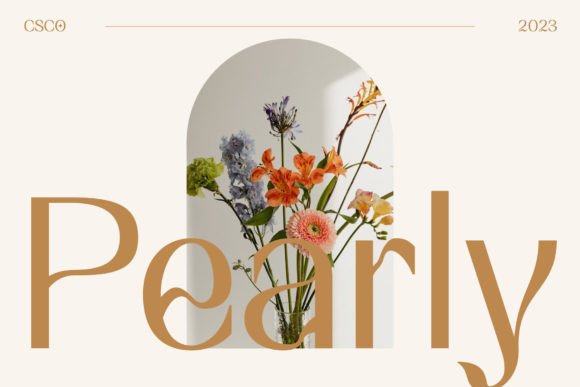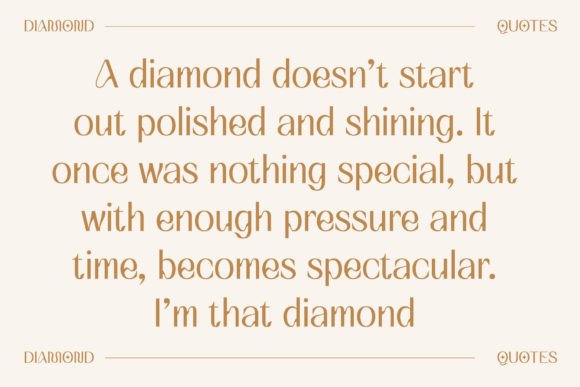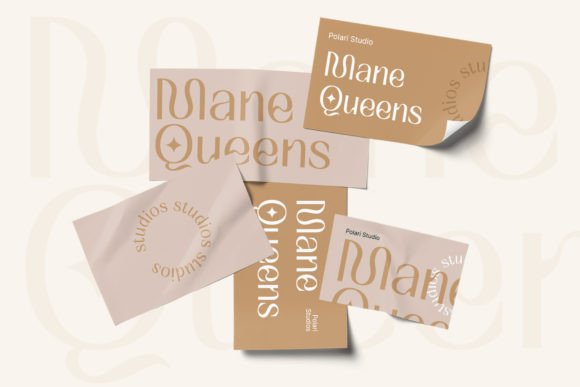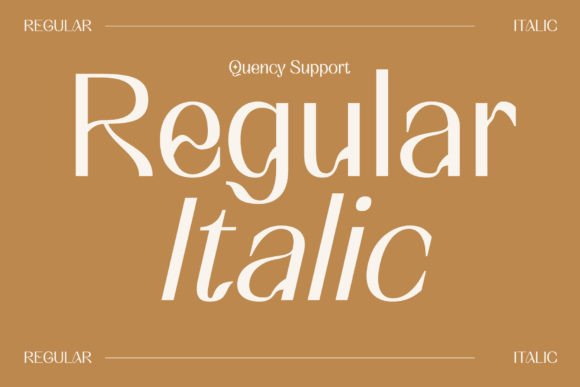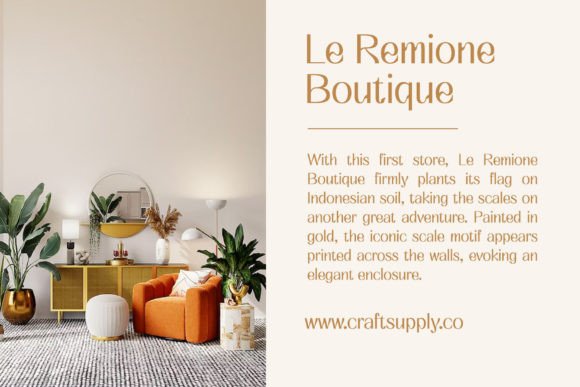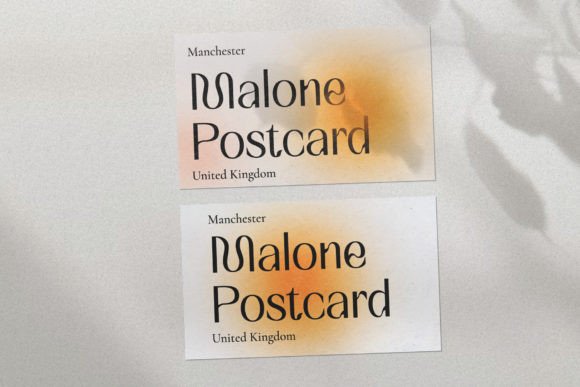
Introduction to Quency Font
Have you ever found yourself staring at a blank design canvas, desperate for the perfect font to bring your creative project to life? We’ve all been there. The search for that elusive, game-changing typeface can be a daunting task, but what if we told you that your search is over? Introducing Quency Font, a delightful and quirky sans-serif font that’s about to revolutionize the way you approach your design projects.
Quency Font is more than just a font – it’s a design resource that adds a touch of whimsy and personality to any project. With its unconventional lines and playful charm, it’s the perfect addition to greeting cards, packaging, brand identity, posters, and so much more. Whether you’re a seasoned designer or just starting out, Quency Font is a high-quality, free download that’s sure to elevate your designs and make them stand out from the crowd.
Key Features of Quency Font
- High-quality, professional design for creative projects, making it an ideal design resource.
- Unique, handcrafted characters with a transparent background, allowing for maximum flexibility and customization in your design.
- Perfect for designers, artists, and writers looking for a distinctive and eye-catching font to elevate their creative project.
- Supports a wide range of languages, including Latin, Cyrillic, and Greek, making it a versatile choice for global design applications.
Honest Review: Quency Font
I recently had the chance to work with the Quency Font, and I have to say it’s a solid addition to any design resource library. One of the things I appreciate about this font is its high quality aesthetic. The subtle nuances in lettering and overall design make it perfect for creative projects where you want to add a touch of sophistication.
- ✨ Customizable: I love that the font is available with a transparent background, which gives me the flexibility to use it in a variety of creative ways.
However, there are a few limitations to consider. The Quency Font is primarily designed for digital use, which means it may not be the best choice for print materials. Additionally, the font is not as extensive as some other options on the market, with only a limited number of weights and styles available.
Overall, I’m impressed with the Quency Font and would definitely recommend it to designers looking for a high-quality, easy-to-use font for their creative projects.
Tips for Getting the Most Out of Quency Font
Experiment with different font sizes and styles to create a unique design effect. Use the font with a transparent background to create a visually appealing design. Also, consider using the font in combination with other design elements to create a cohesive and high-quality design.
Common Use Cases for Quency Font
The Quency Font is ideal for use in creative projects such as logo design, branding, and marketing materials. It’s also great for use in presentations, reports, and other business documents where a high-quality font is required.